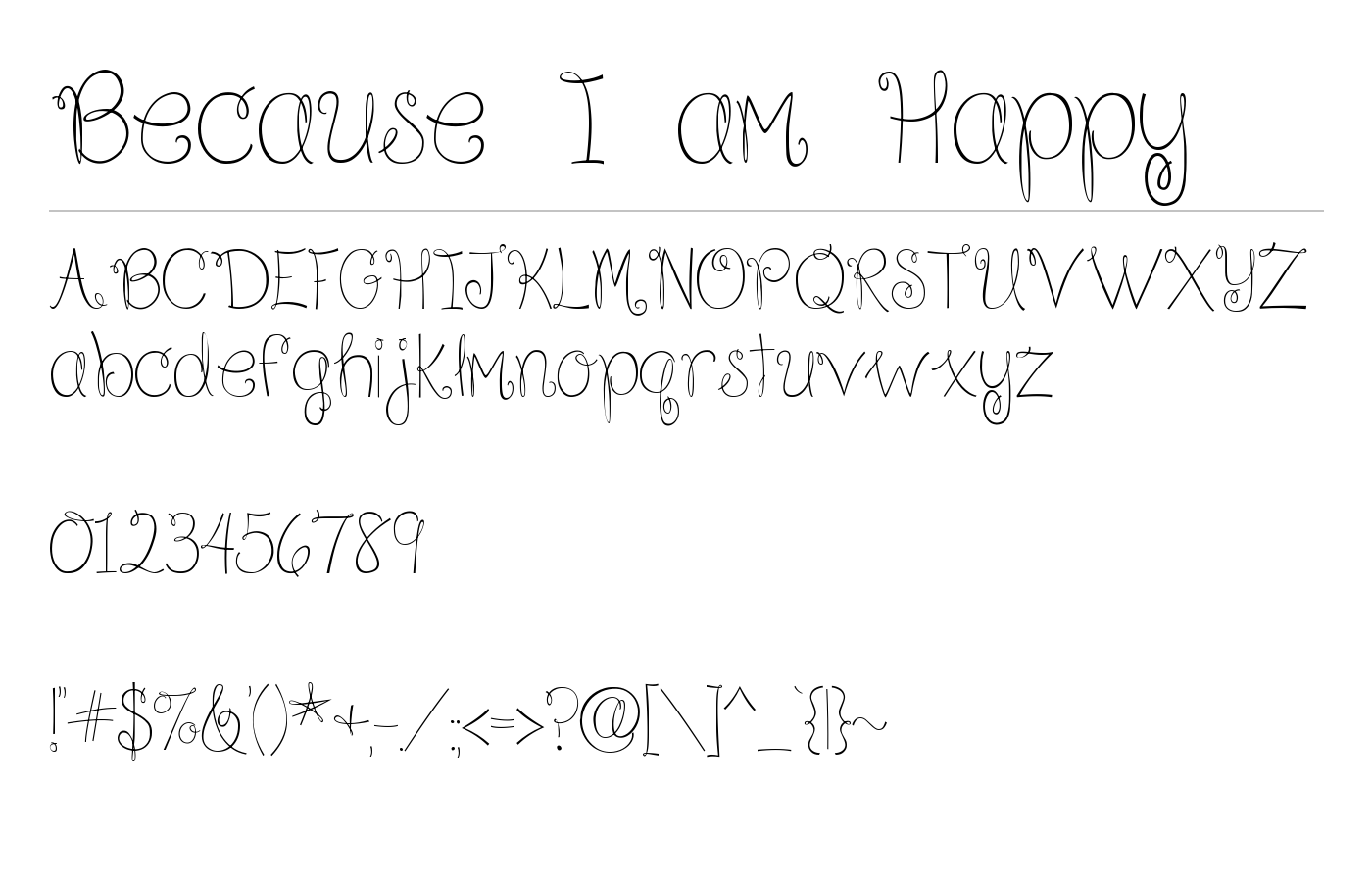
Because I am Happy is a whimsical, hand-drawn script font with tall, delicate letterforms and playful curly details that give it a light, airy feel. Its unique loops and curls make it perfect for creative, cheerful designs where a personal, joyful touch is needed, such as invitations, greeting cards, or playful branding. This font’s informal and fun style brings a sense of happiness and creativity to any project.
Because I am Happy Font
About Because I am Happy Font